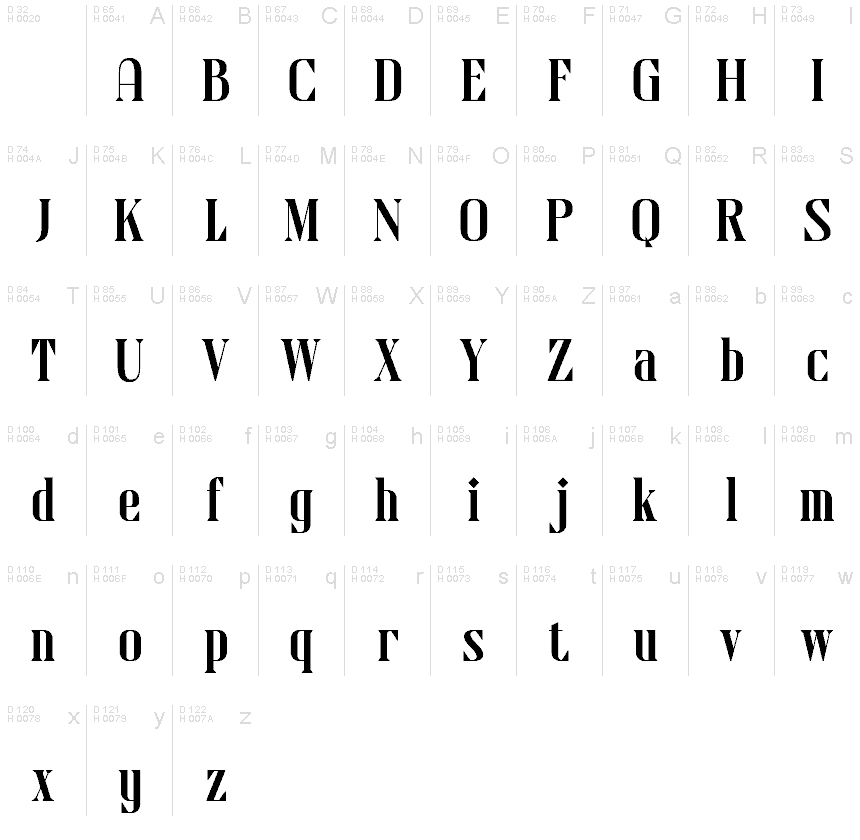
Valtine Demo Regular
Valtine font by Craft Supply Co is a condensed serif font with an ornamental look. Some of its key elements include high contrast segments and pronounced subtle curves that are implemented into each character. These all create an elegant look for the font along with its refined, sophisticated, timeless, and classically appealing style.
While free to use like other fonts from Craft Supply Co. Valtine can be mostly matched in sophisticated projects where elegance is required. It’s best in posters for classic festivals, menus for luxury restaurants and hotels, fashion covers for magazines or books, vintage shops stationery designs, and others of the sort.